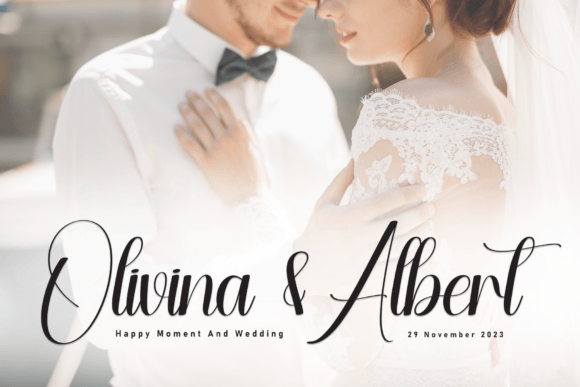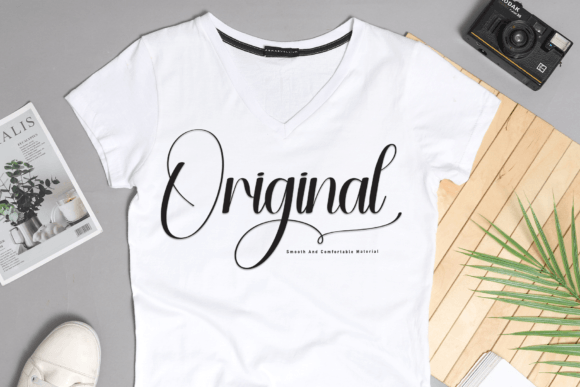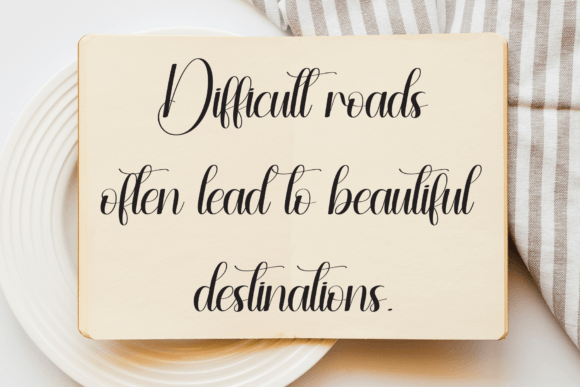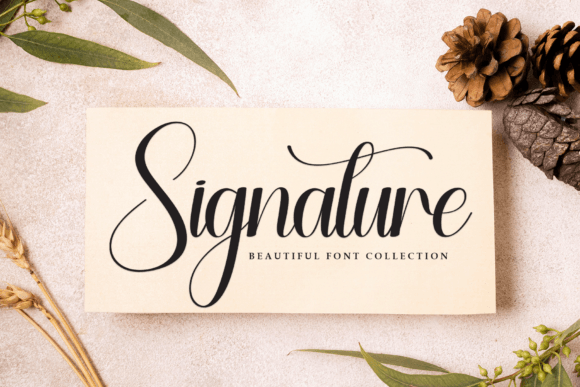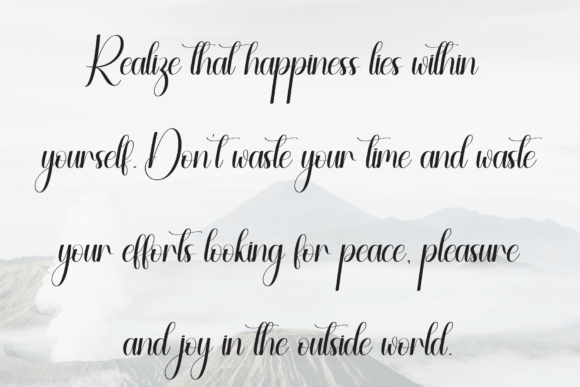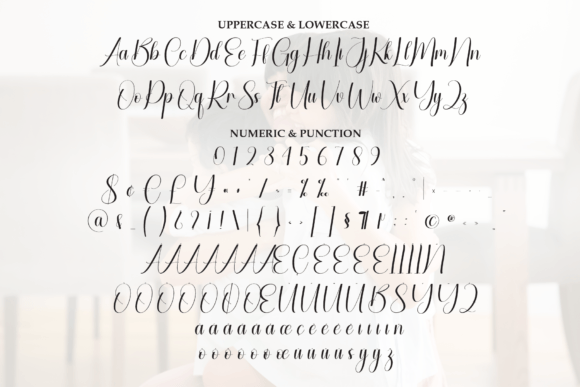
Introduction to Hugtime Font
Remember that moment when you were working on a creative project, and you stumbled upon the perfect design resource? It’s like a breath of fresh air, elevating your entire concept and making it shine. For me, that moment came when I discovered the Hugtime Font. This adorable handwritten font has been a game-changer in my design workflow, and I’m excited to share its magic with you.
As a designer, you know the value of having the right tools at your fingertips. Hugtime Font is one of those hidden gems that can take your designs to the next level, adding a personal touch that resonates with your audience. In this article, we’ll delve into the world of Hugtime Font, exploring its features, benefits, and how you can incorporate it into your next creative project.
Key Features of Hugtime Font
- High-quality, free design resource for creative projects, ideal for use in digital art and graphic design.
- Unique, hand-crafted design with a playful and whimsical feel, perfect for adding a personal touch to your creative project.
- Perfect for use in digital art, graphic design, and other creative projects where a high-quality, unique font is required.
Honest Review: Hugtime Font
I recently had the chance to work with the Hugtime Font, and I’m excited to share my thoughts on this design resource. As a designer, I’m always on the lookout for high-quality fonts that can elevate my creative projects.
One thing that really stood out to me was the Hugtime Font’s versatility. It’s perfect for projects that require a touch of whimsy and playfulness. The font is highly customizable, and it works beautifully on both light and dark backgrounds.
Here are some features that I love about the Hugtime Font:
- Easy to use and customize
However, I did encounter some limitations with the Hugtime Font. ⚠️ The font can be a bit overwhelming in large quantities, so be careful not to overdo it. Additionally, it may not be suitable for formal or corporate projects.
Overall, I’m really impressed with the Hugtime Font. It’s a great addition to any designer’s toolkit, and I’m sure it will be a hit in the design community. ✨ If you’re looking for a fun and playful font to add some personality to your creative project, the Hugtime Font is definitely worth checking out.
How to Use Hugtime Font
The Hugtime Font is a high-quality design resource that can elevate your creative project with its unique style and transparent background.
Tips for Getting the Most Out of Hugtime Font
Experiment with different font sizes and styles to create a unique look. Use the font in combination with other design elements, such as images and graphics, to add depth and interest to your project.
The Hugtime Font is perfect for creative projects, such as branding, advertising, and editorial design. You can also use it for personal projects, such as wedding invitations and party decorations.